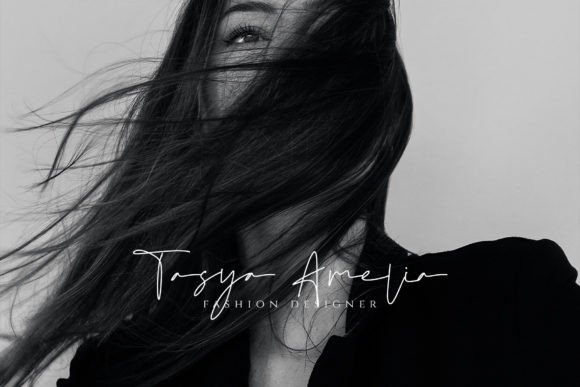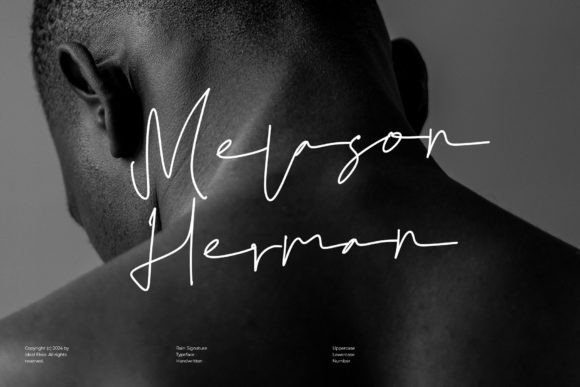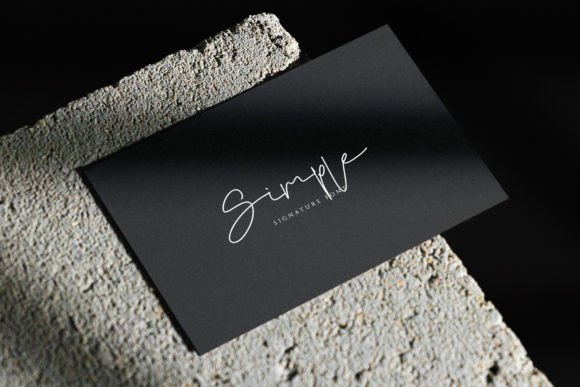
Introduction to Rain Signature Font
Have you ever been brainstorming a new design concept, only to find yourself stuck on the perfect font to bring your vision to life? This is a common challenge many designers face, but what if you could find a font that effortlessly elevates your creative project with its elegant and simple design? Enter Rain Signature Font, a game-changing monoline script font that combines the fluidity of hand-drawn lettering with the precision of clean lines.
As a valuable resource for designers, Rain Signature Font offers a high-quality design solution that’s perfect for crafting logos, invitations, business cards, or social media graphics. Its consistent stroke width ensures a balanced and harmonious appearance, making it a great choice for projects that require a touch of refinement and sophistication.
Whether you’re working on a design project that requires a clean and modern look or simply want to elevate your personal brand with a professional touch, Rain Signature Font is the perfect tool to have in your design arsenal. With its transparent background and free download availability, this font is a must-have for any designer looking to take their creative work to the next level.
Key Features of Rain Signature Font
- Unique, hand-drawn style with transparent background for versatility
- Supports multiple languages and character sets, making it a great choice for international projects
- Perfect for watercolor, hand-painted, or abstract design styles
Honest Review: Rain Signature Font
I recently came across the Rain Signature Font, and I’m excited to share my honest thoughts on this design resource. As a designer, I appreciate high-quality fonts that can elevate a creative project and make it truly stand out.
One of the things that works well about the Rain Signature Font is its unique and elegant design. The font features a beautiful, flowing script that’s perfect for adding a touch of sophistication to any project. I also appreciate that it comes with a transparent background, making it easy to use with any background image or color.
- ✨ Unique and elegant design
- ✨ High-quality font suitable for creative projects
- ✨ Includes a transparent background for easy use
While the Rain Signature Font is a great addition to any design collection, there are a few limitations to consider. The font is only available in a few weights, which may limit its versatility in certain projects. Additionally, the font may not be suitable for projects that require a more modern or edgy look.
Overall, I’m impressed with the Rain Signature Font and would recommend it to designers looking for a high-quality, elegant font for their creative projects. With a free download available, it’s definitely worth checking out.
The Rain Signature Font is a high-quality design resource that can elevate your creative project to the next level. With its unique and stylish design, this font is perfect for adding a touch of elegance to your work.
The Rain Signature Font is perfect for a variety of design projects, including:
- Wedding invitations
- Birthday party invitations
- Business cards
- Logos